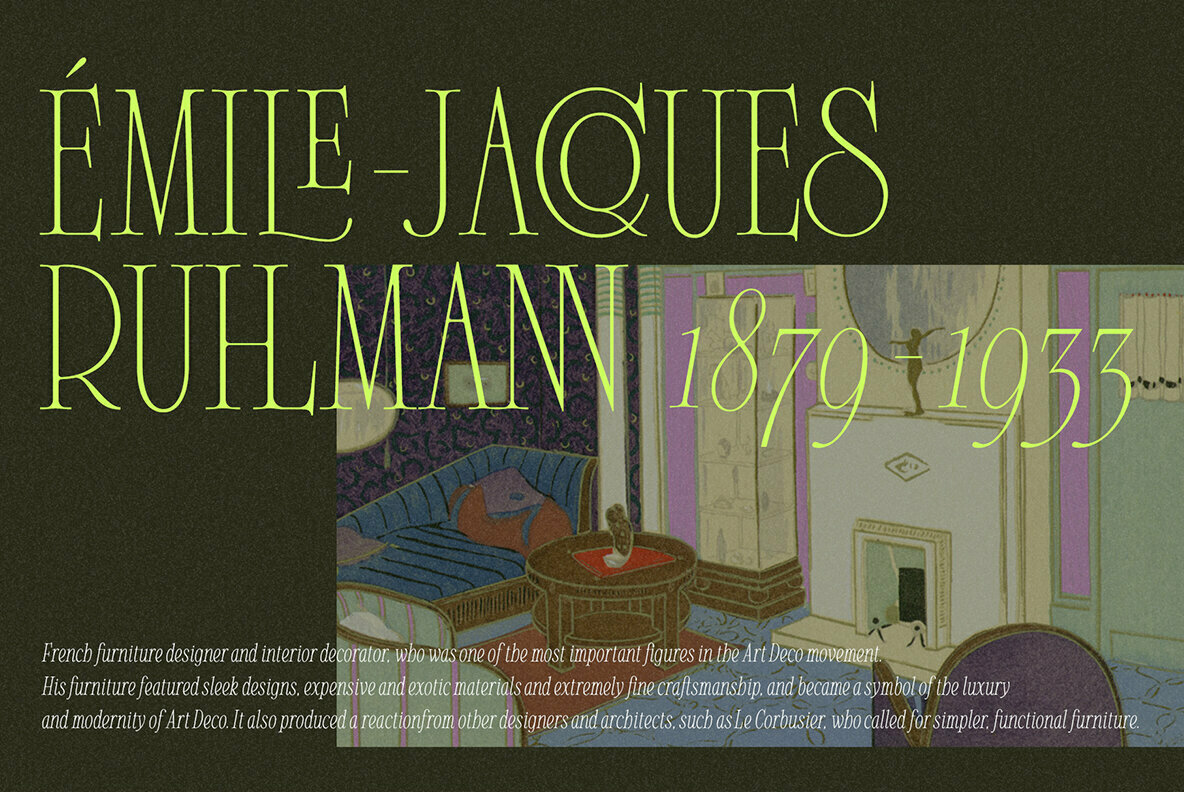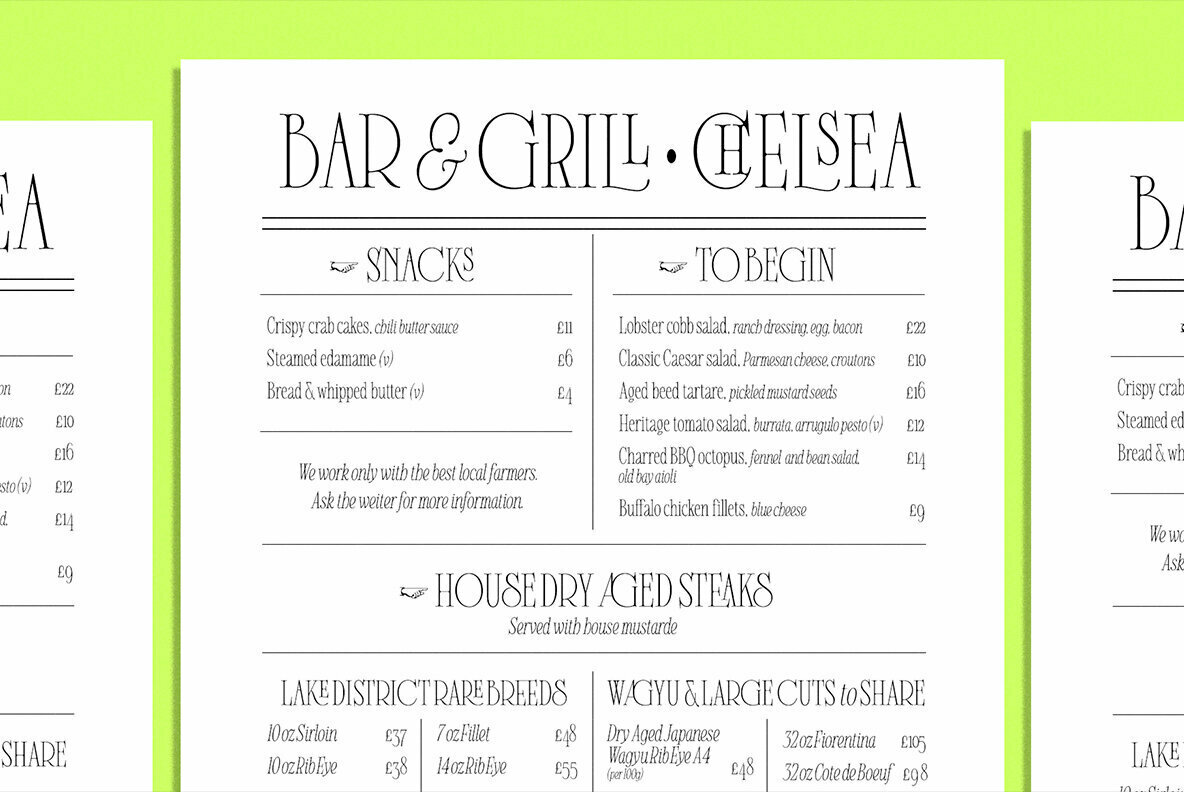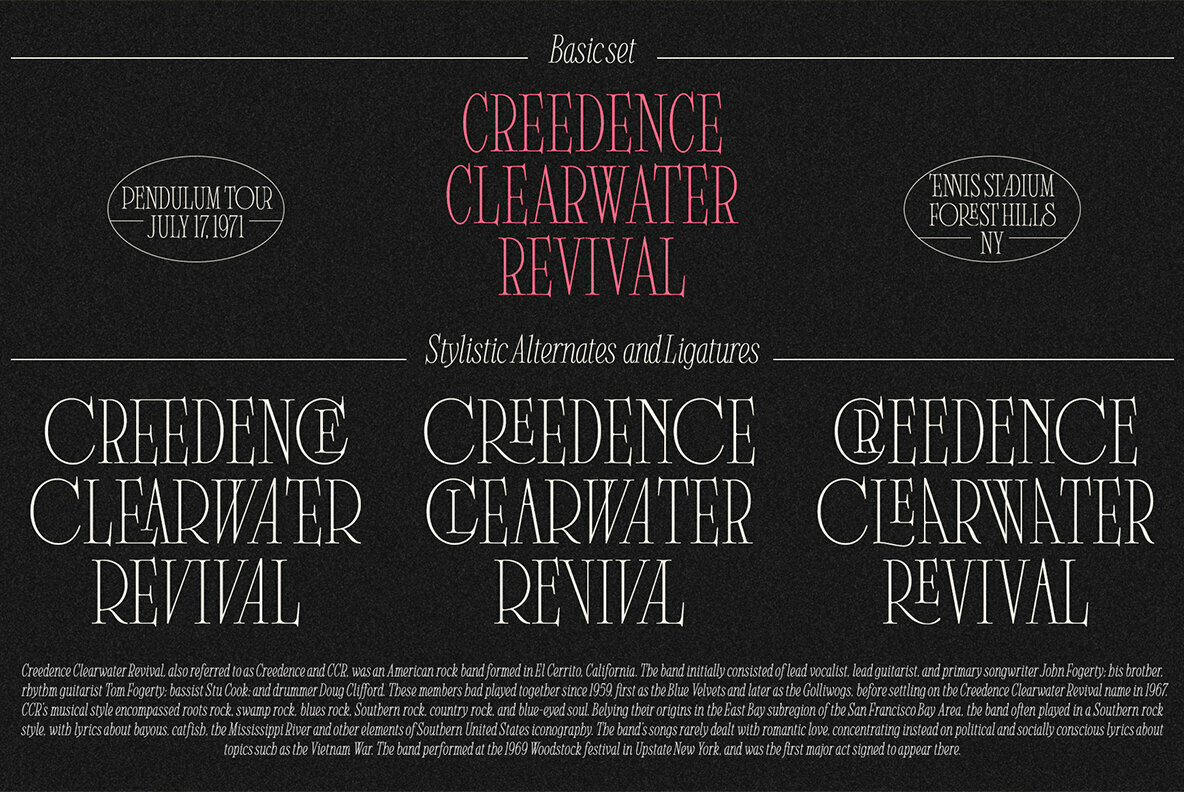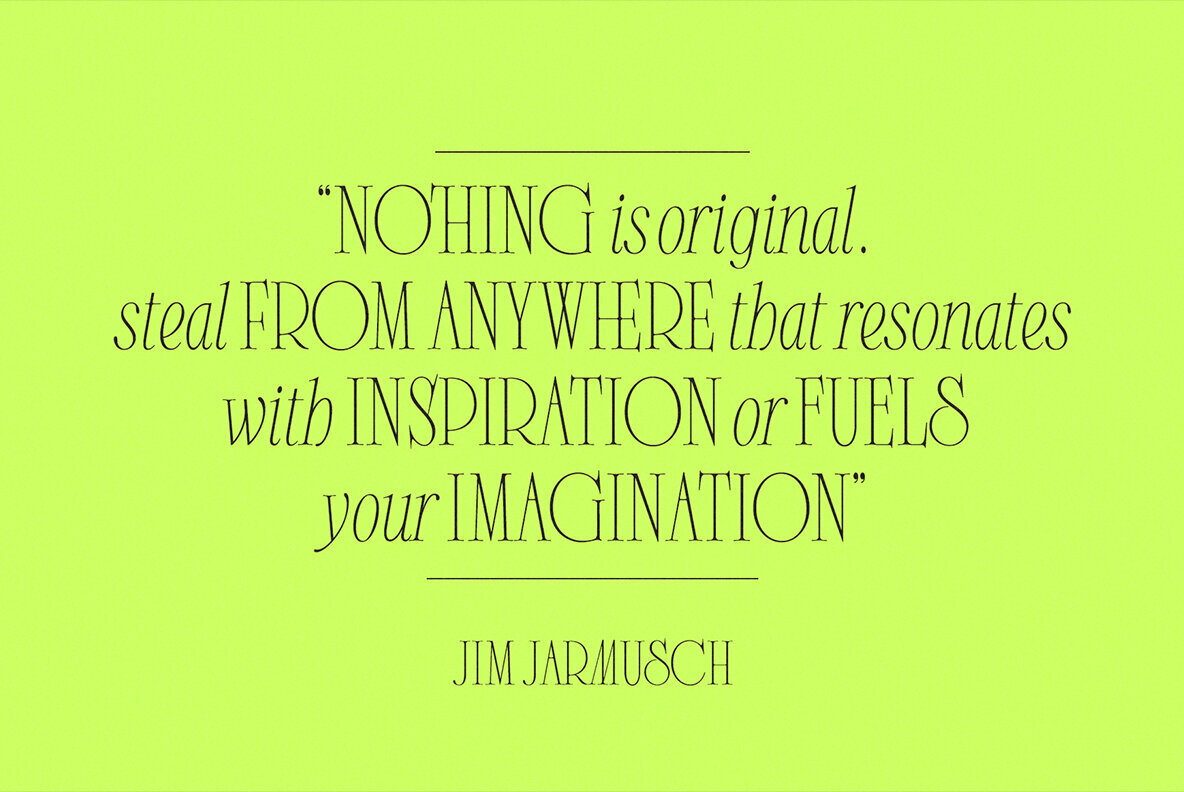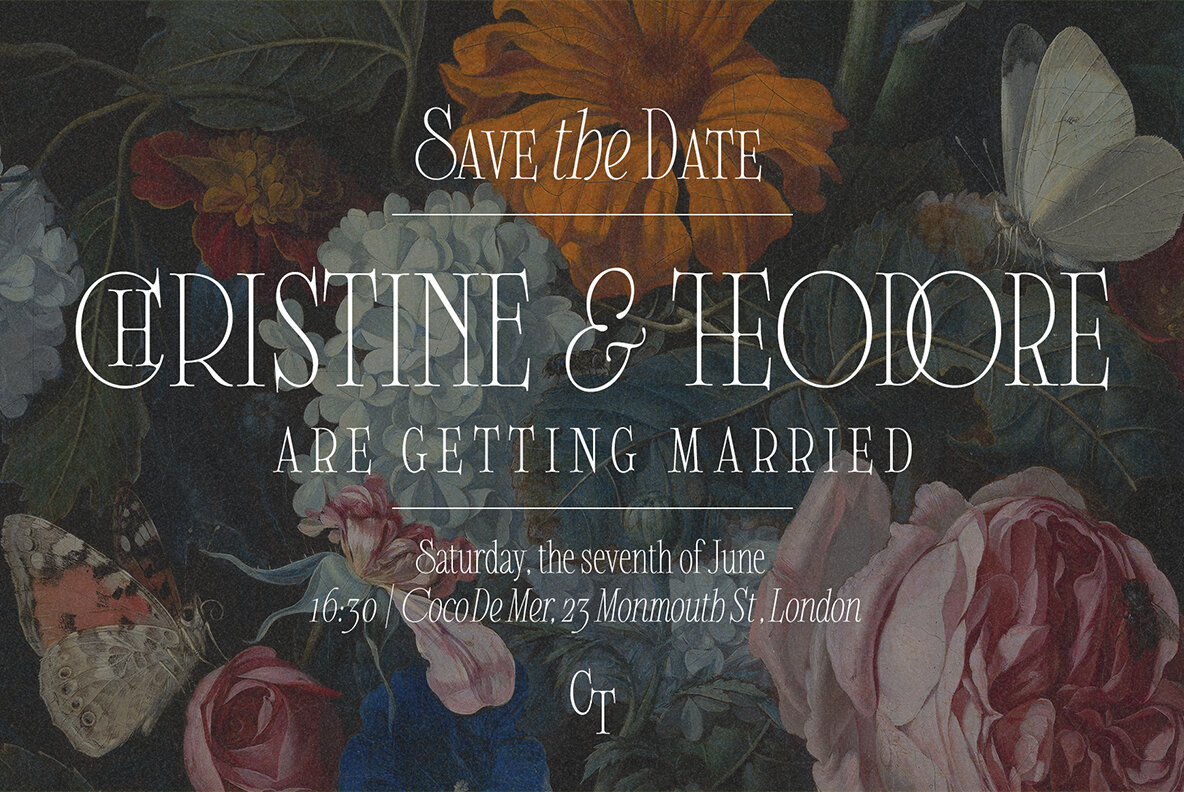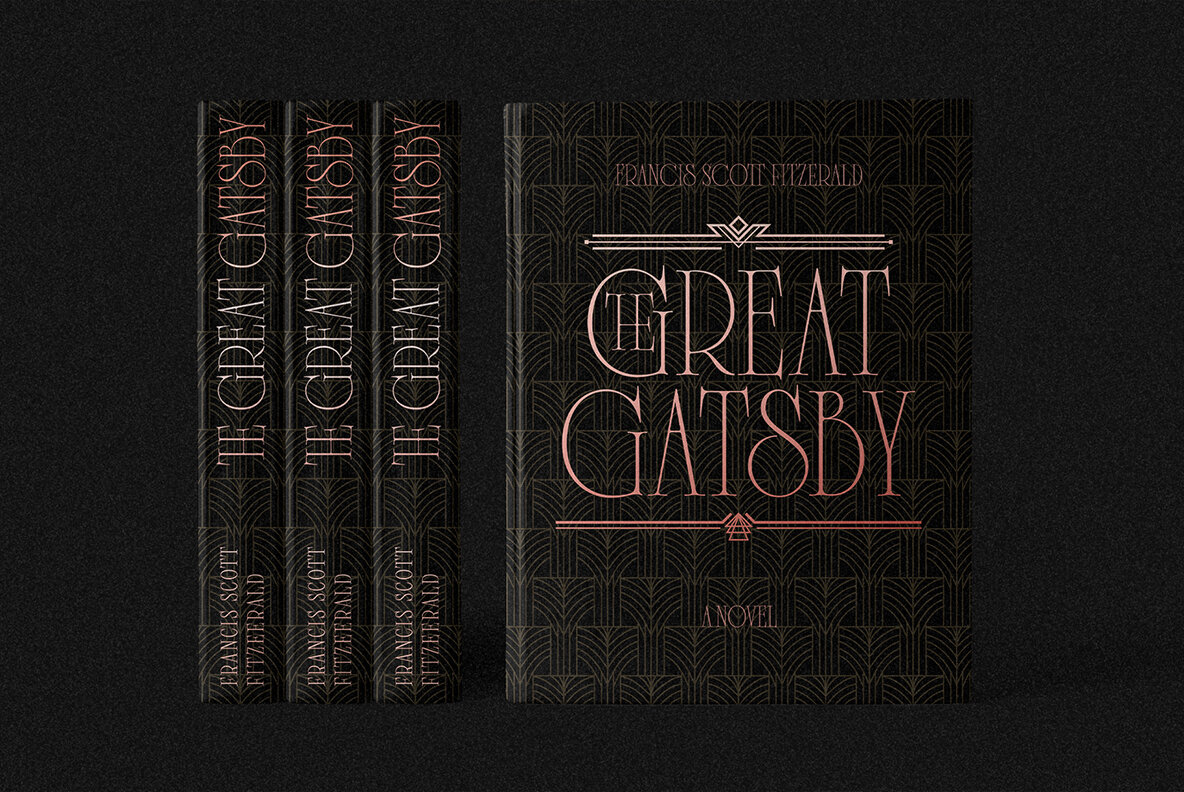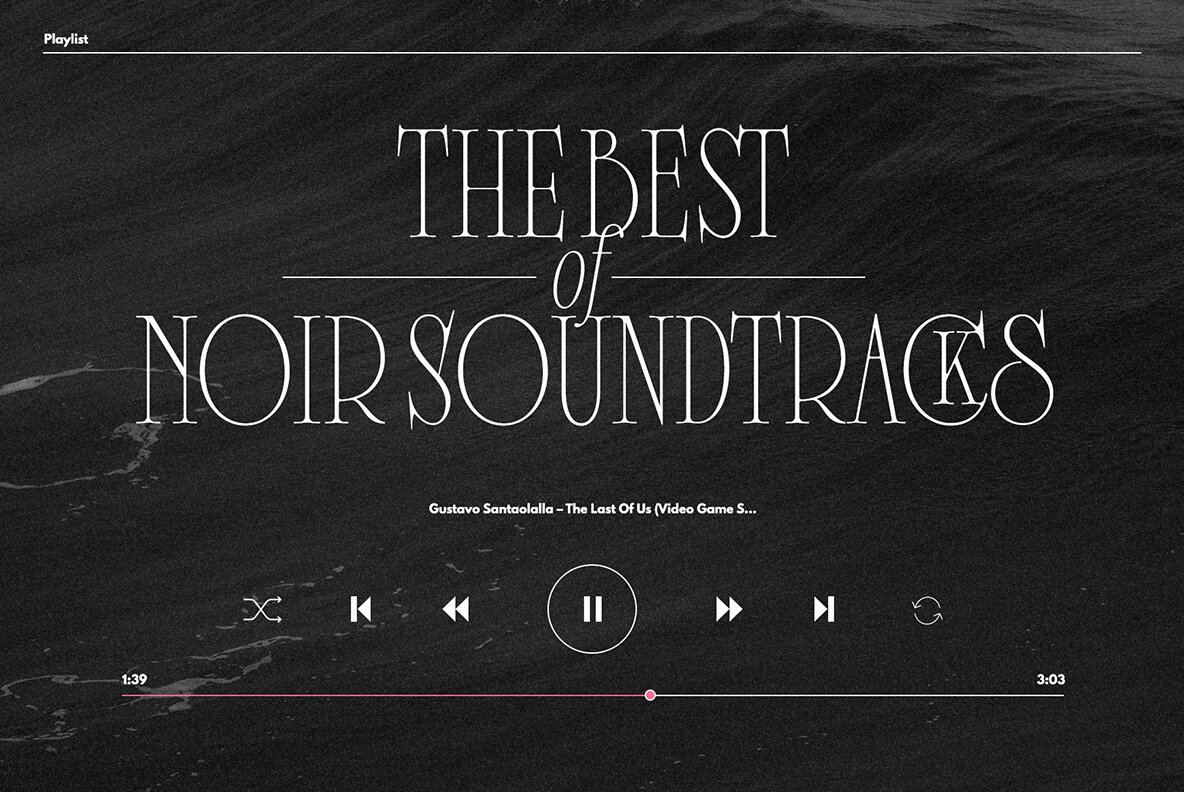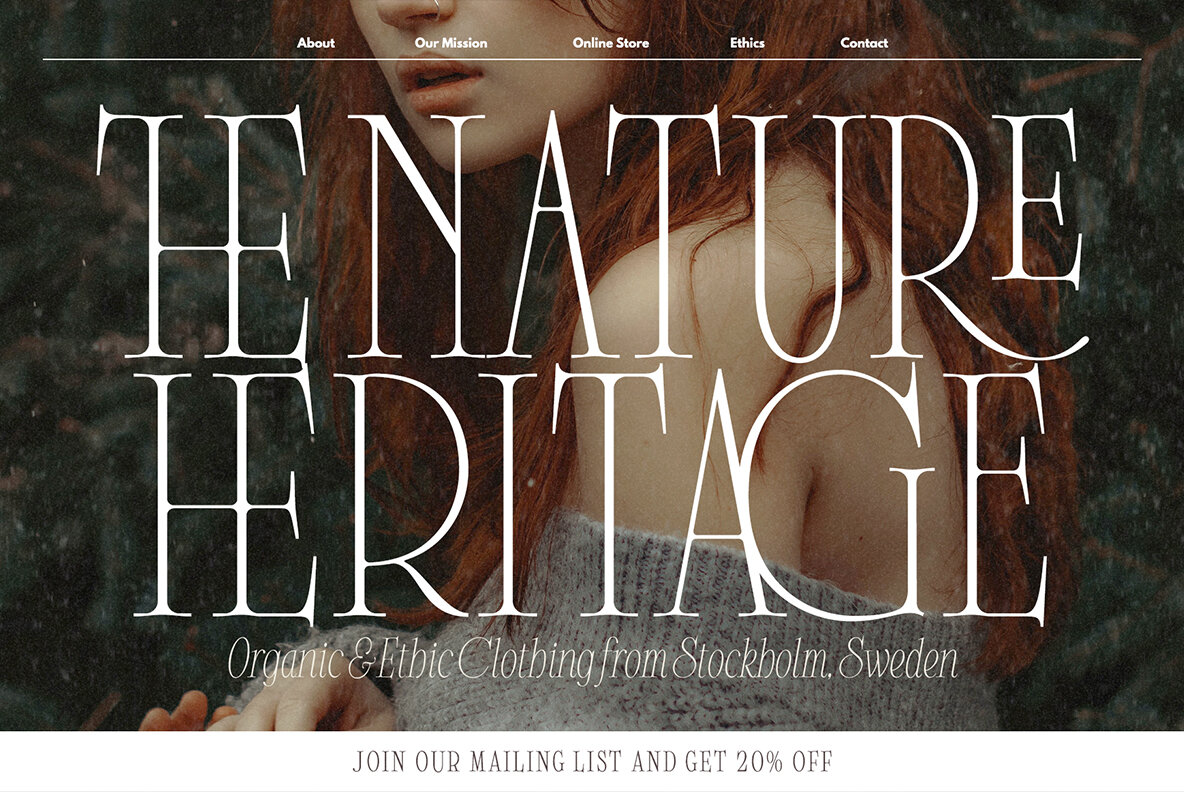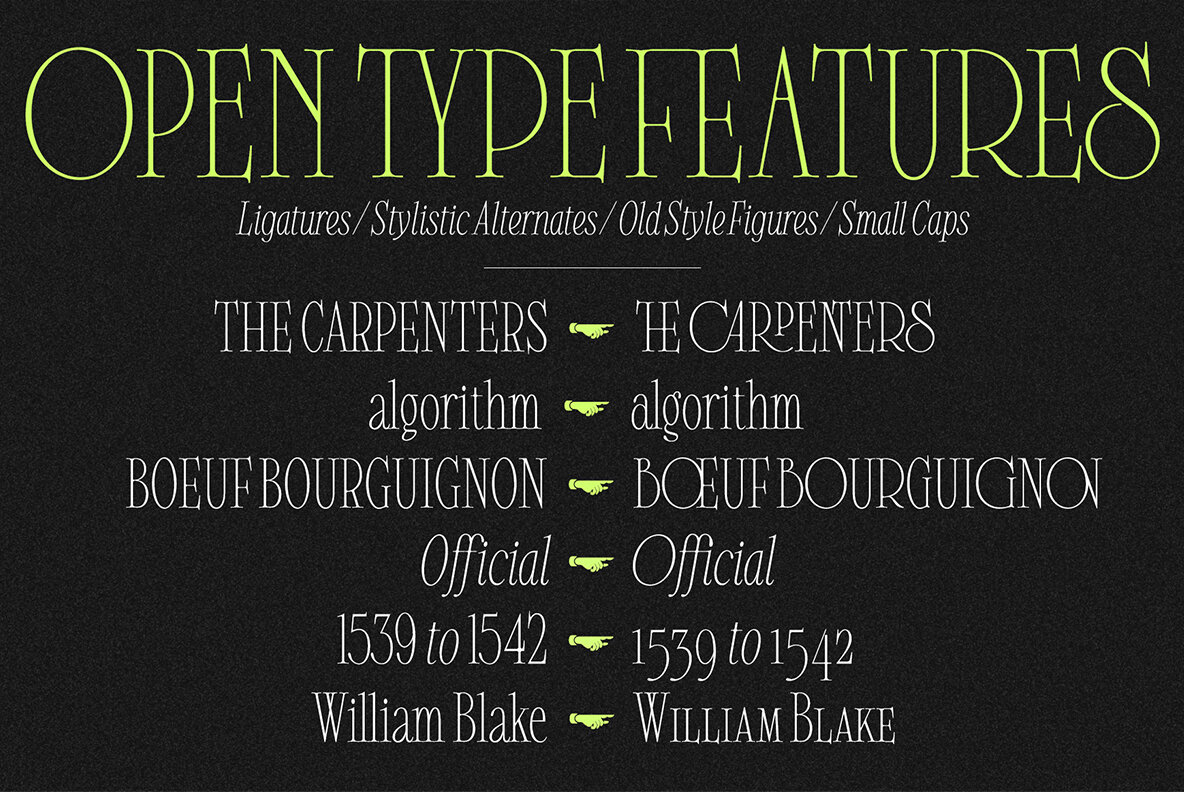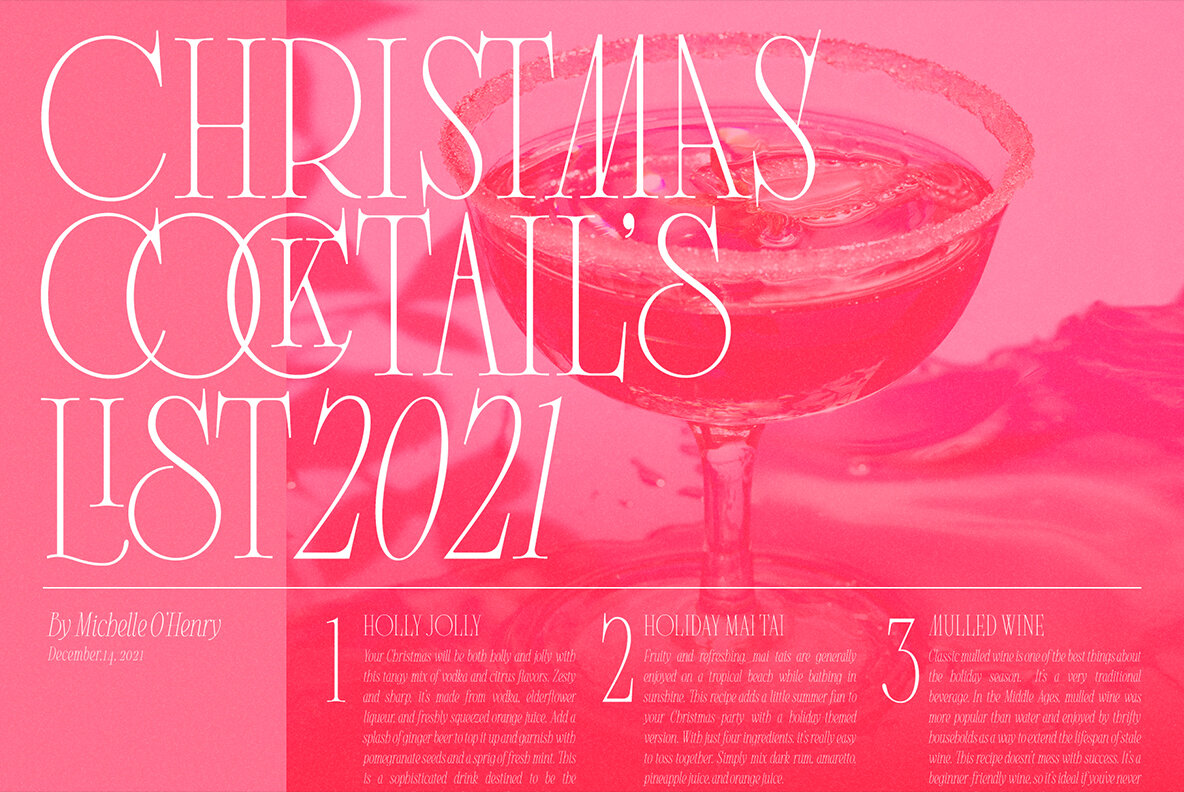
Clementia Font
Clementia – a stylish condensed serif font with Art Deco mood and huge variety of stylistic alternates and ligatures. Thereby your typographic gets a unique and authentic style for a vide variety of projects. Cafe's menu, wedding invitation, branding, magazine's headers, t-shirt prints, posters - all these projects will breathe uniqueness. Your typography may be more discreet with basic stylistic set or it can be more playful, artistic and expressive with any of ligatures or stylistic alternates. • 970 Glyphs total; True Italics; Open Type Features as stylistic alternates, ligatures, old style / tabular / fraction / superior figures, manicules and small caps; Multilingual (Include alternates)